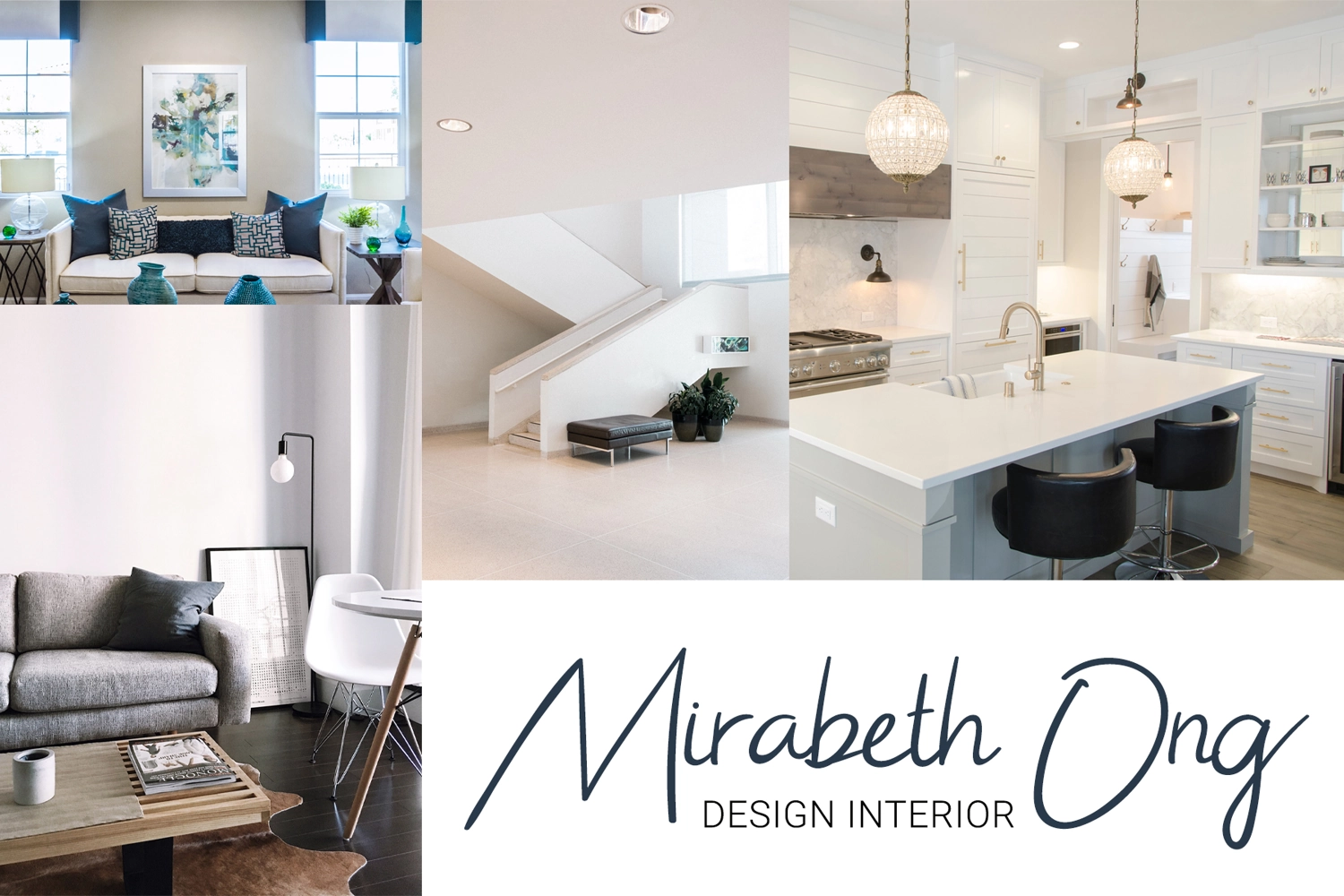
The Chief represents modern elegance with timeless simplicity, making it an extremely versatile into any design. The Chief is perfect font for any kind of your project, such as advertisements, branding, graphic design, quotes, wedding design, logo for online or offline business, photography, and others. Features: +The Chief (OTF/TTF) +Lots of Glyphs, including alternate for your style options +Can be used in any software, like Adobe Photoshop, Illustrator, even Microsoft Word, PowerPoint and others. +Multilingual glyphs.